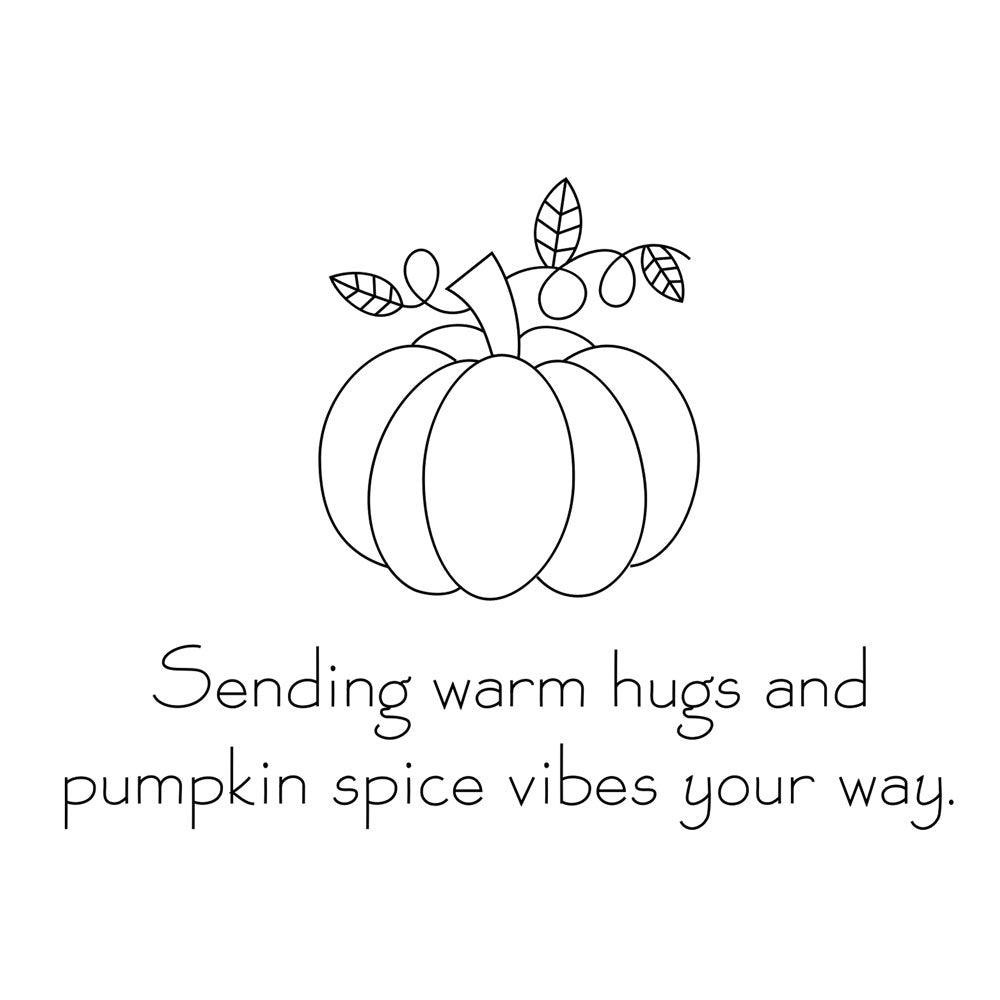
"Sending Warm Hugs" Single Line Design
This Fall, create a greeting card or small sign to a friend using this adorable design.
This file is for use with pen tools, embossing tools, foil quill kits, etc. in personal cutting machines such as Solo, Silhouette, and Cricut. The lettering lines are hairline and are not for cutting items like vinyl or cardstock. The actual tag portions can then be cut, printed, drawn, foiled, embossed, etc.